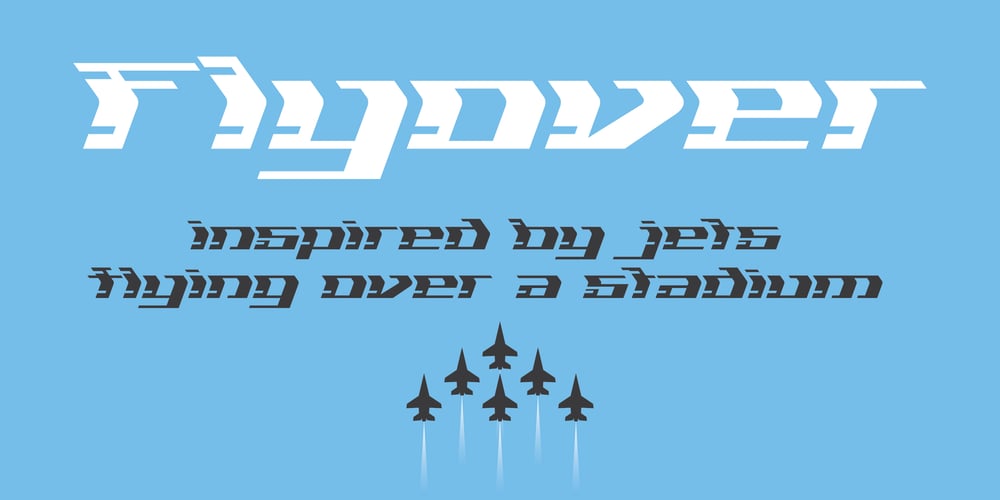
Flyover Font Family was designed by Ross Shapland and published by Ronnie Boy. Flyover contains 2 styles and family package options. When a formation of jets flies over the top of a stadium before a big game, there is an unparalleled sense of excitement in the crowd. Flyover, a display typeface, captures that moment with an italic base, left-facing serifs, hollowed notches and a change in angle representing the instant the jets pass overhead.